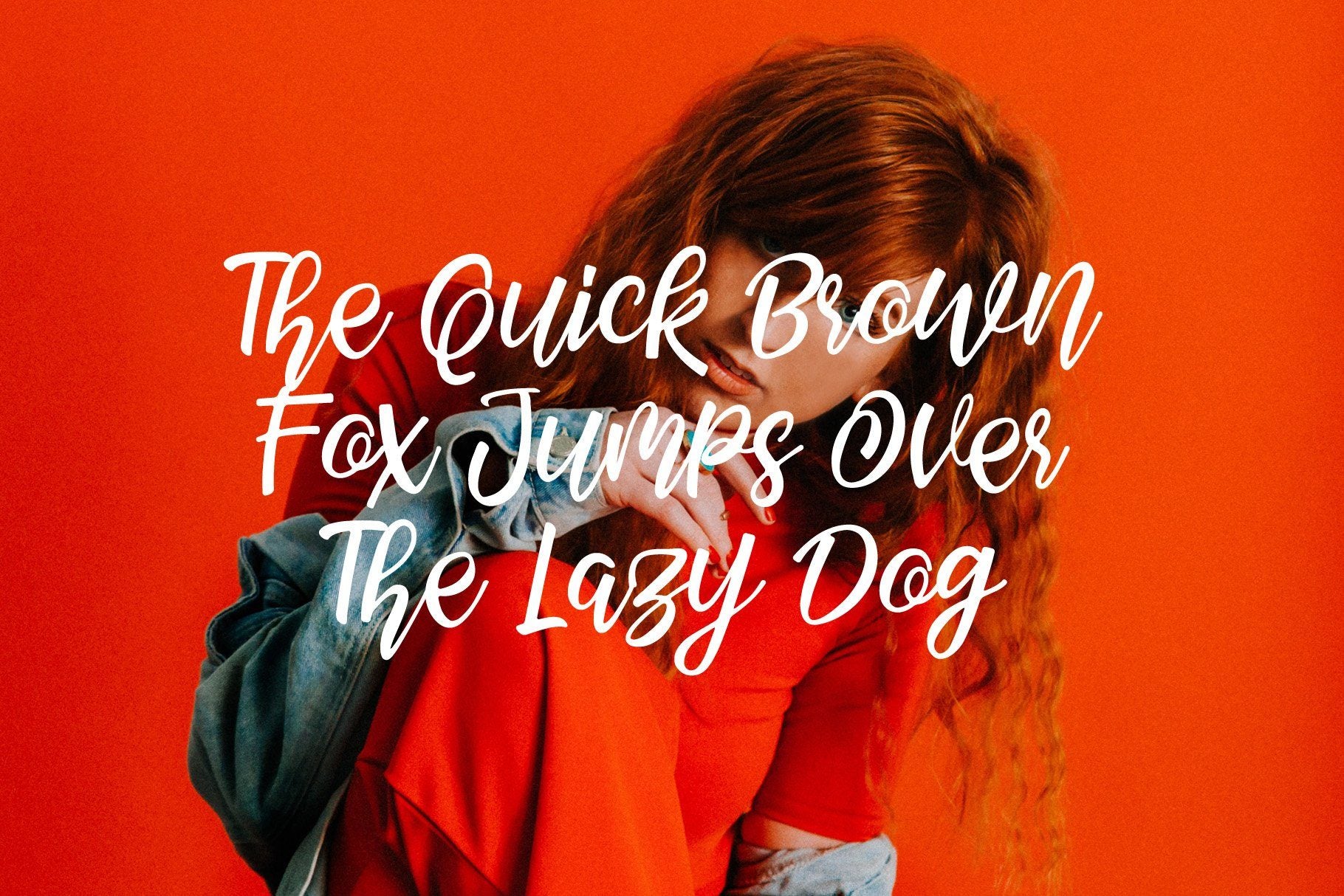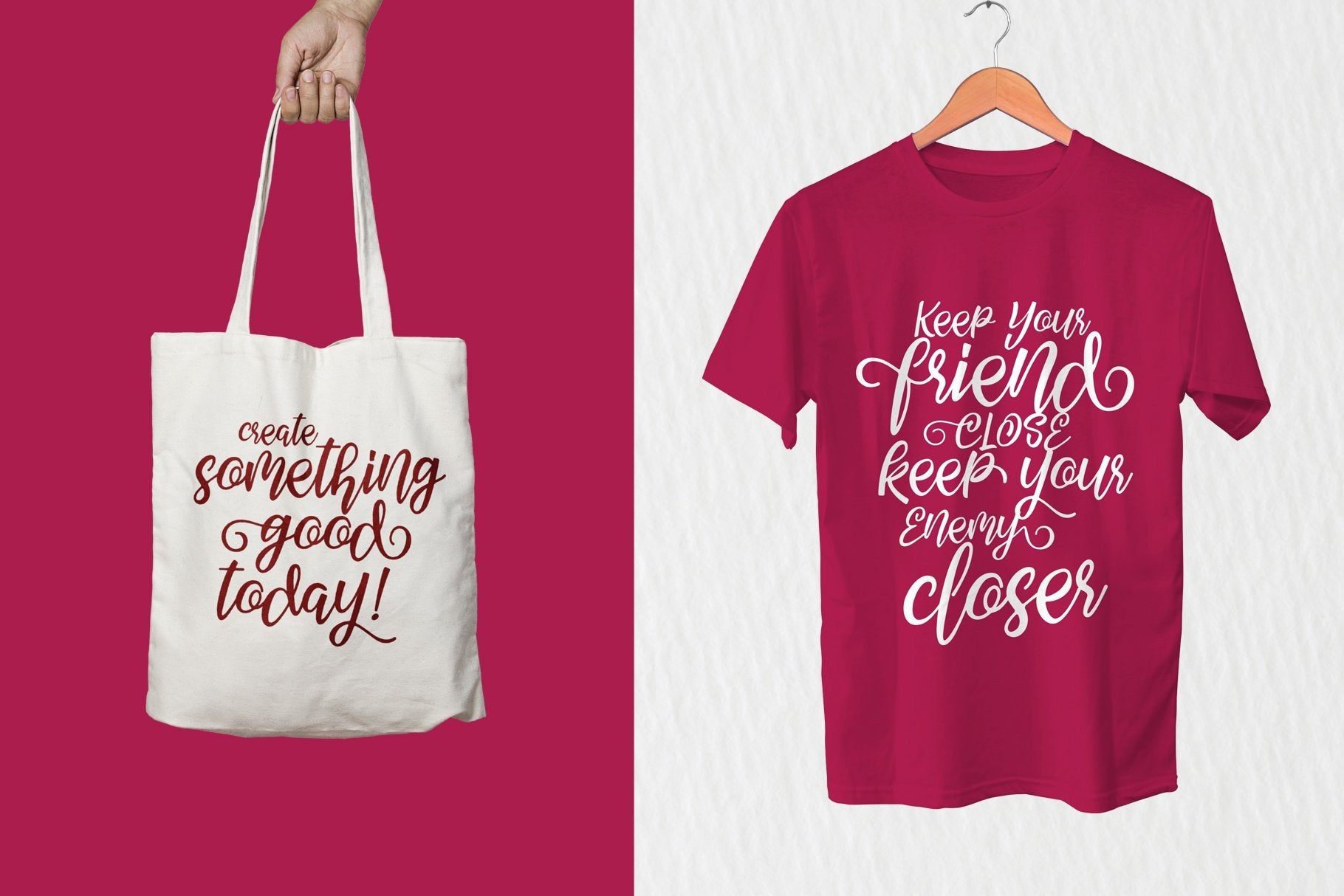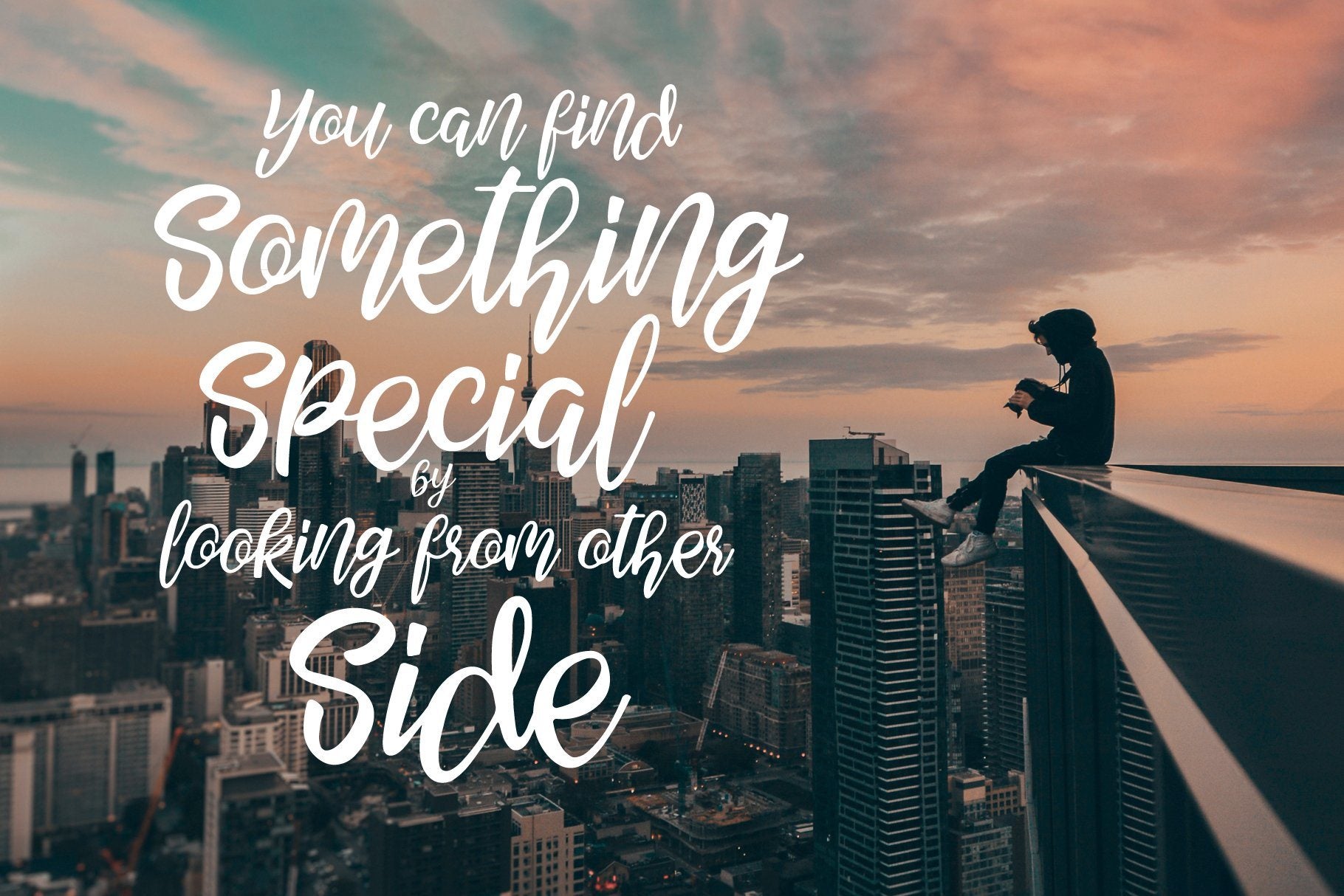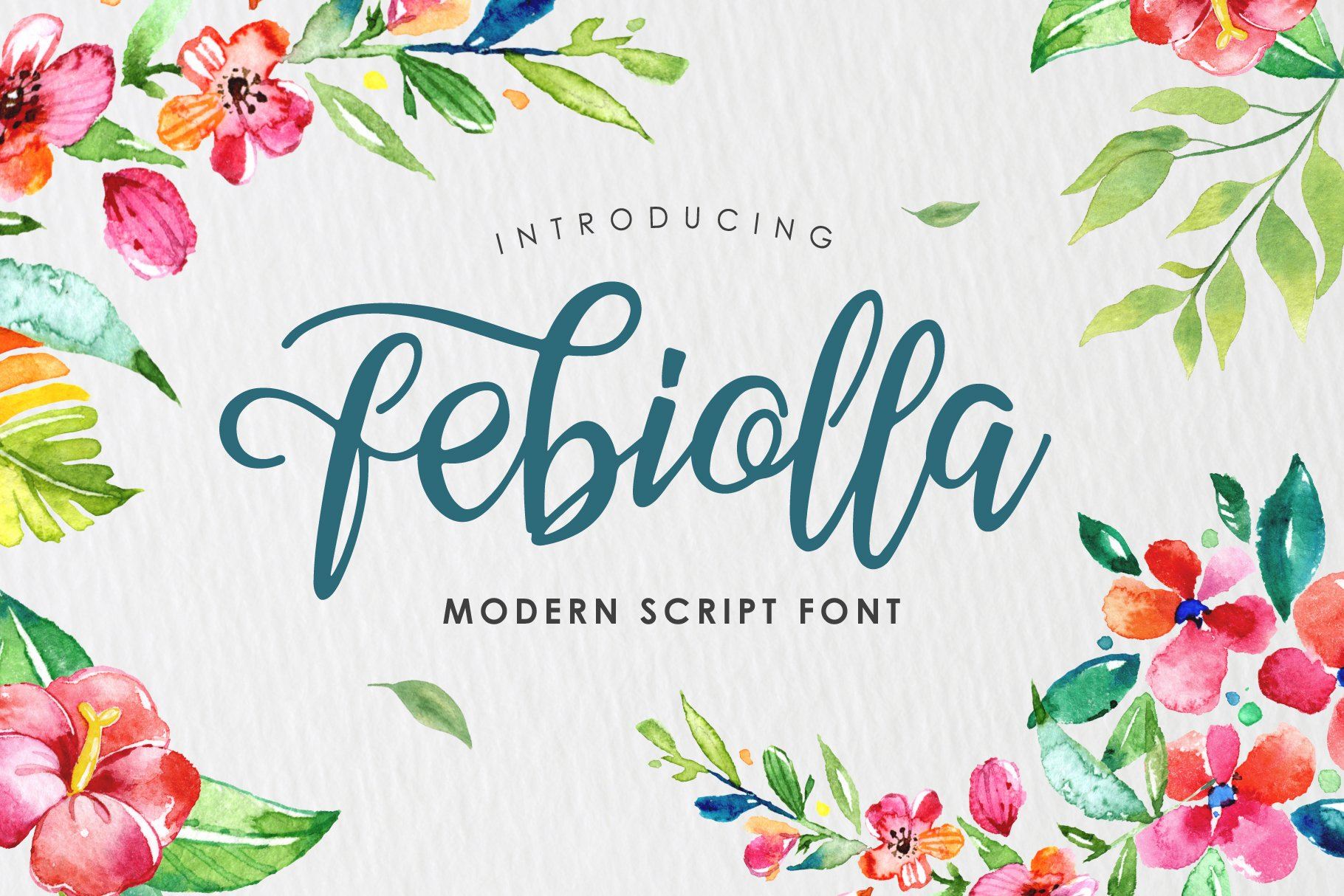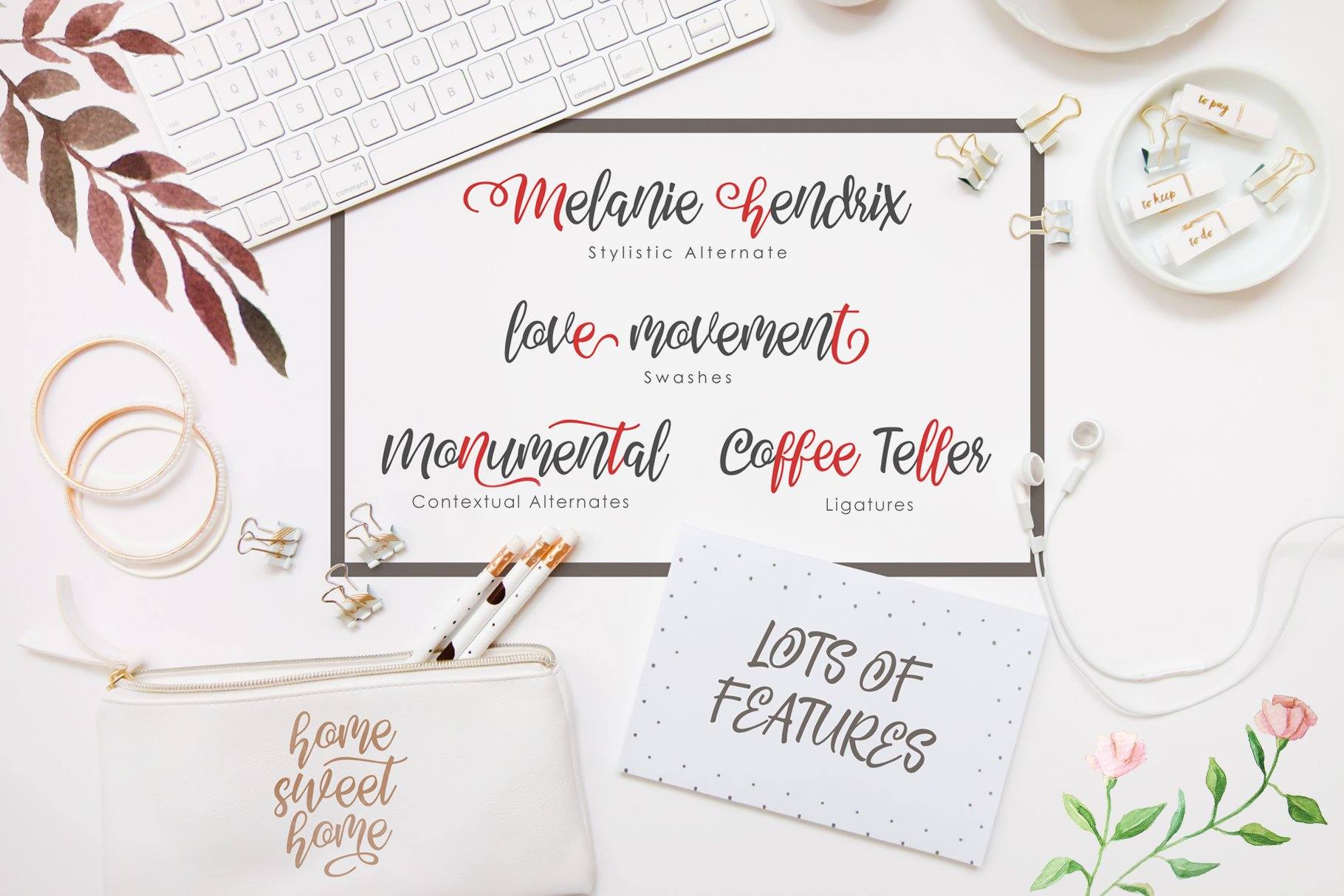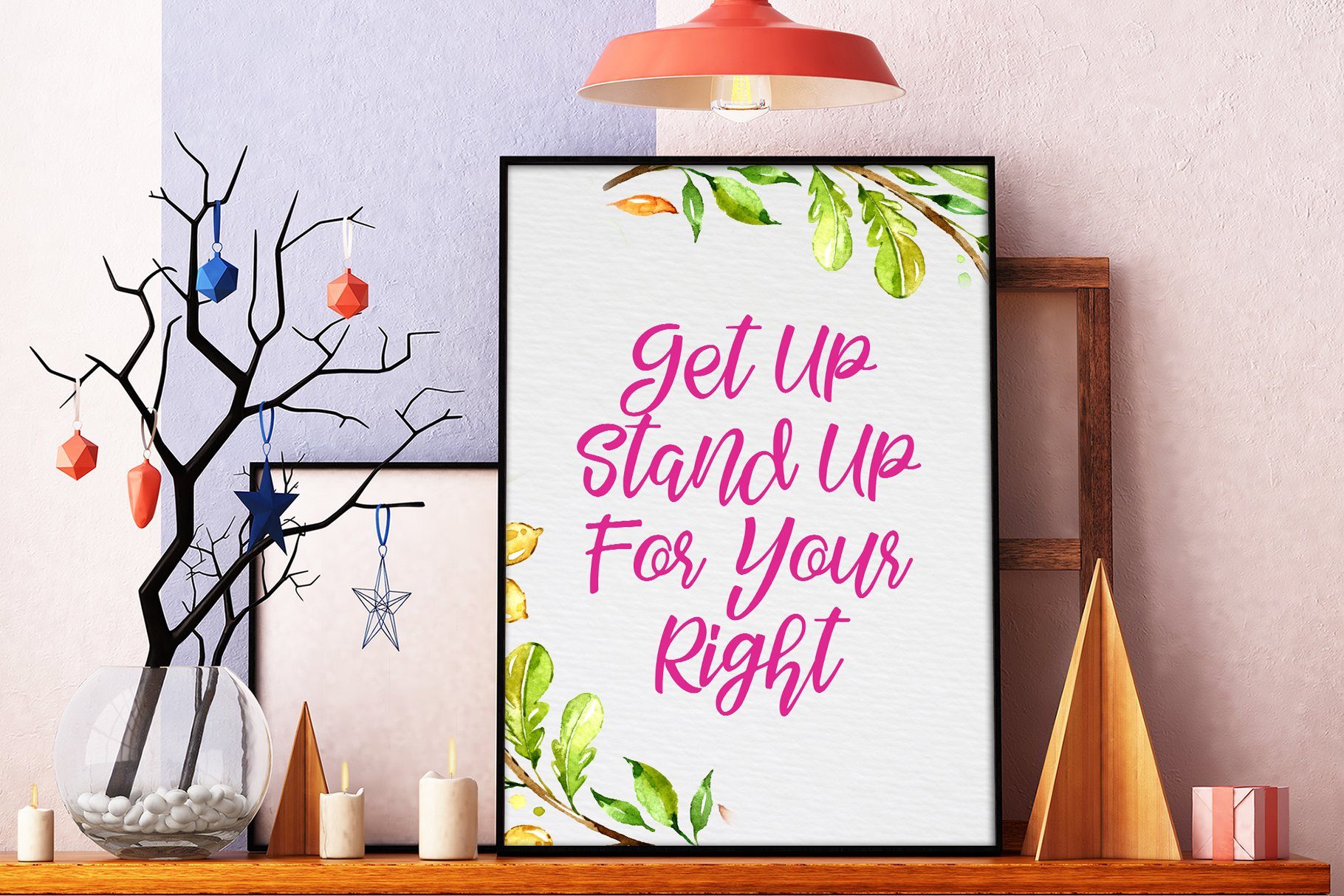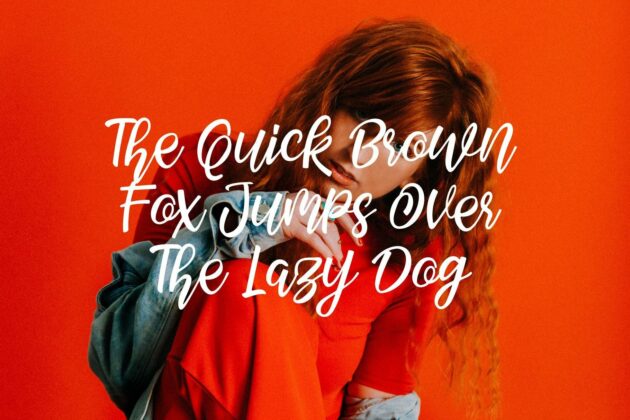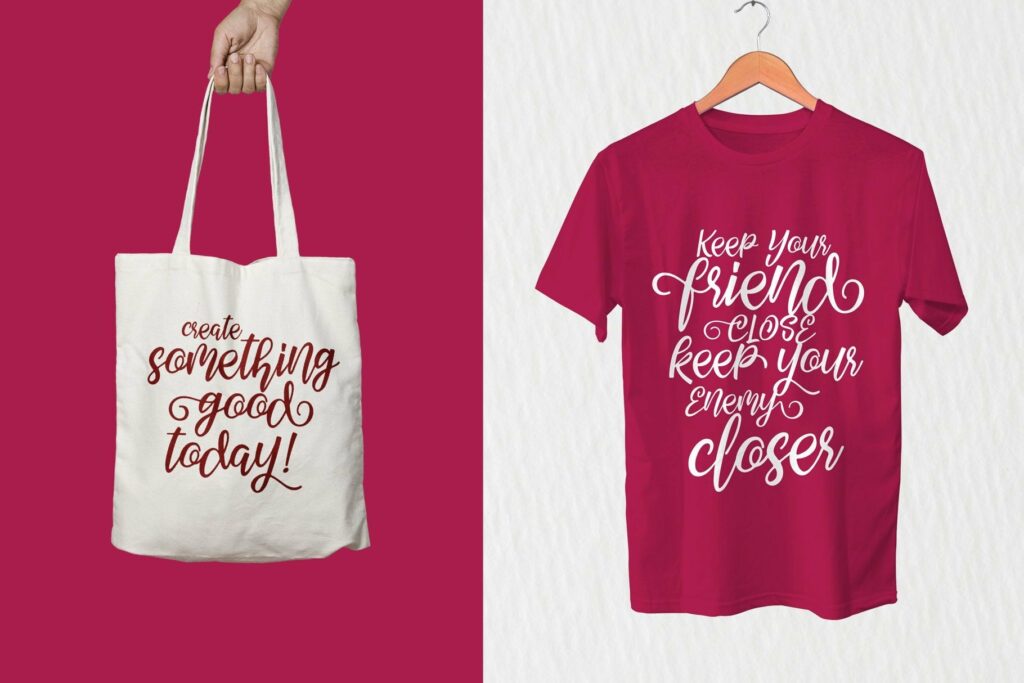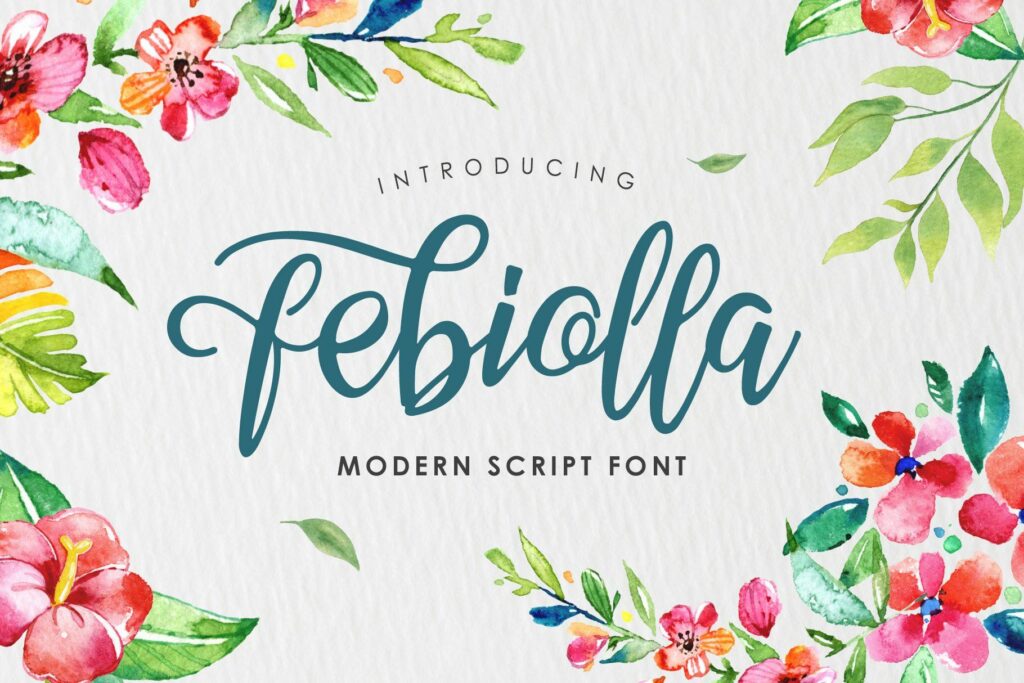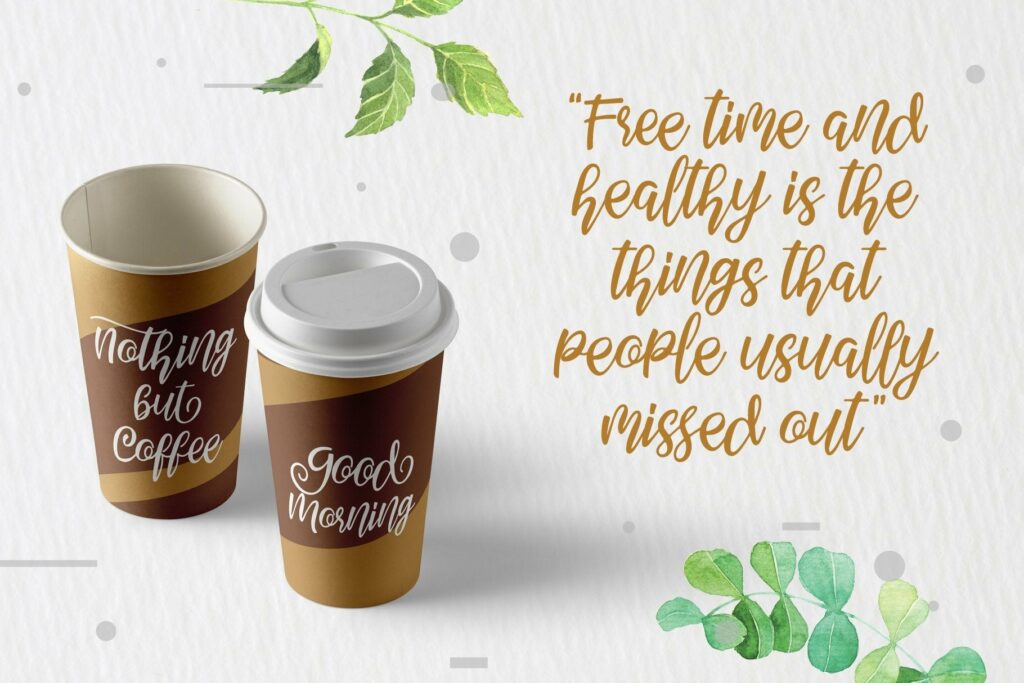
Febiolla Script
About Febiolla Script
Introducing our new brush-script font ‘Febiolla’ the cute font with clean shapes and dynamic strokes. Febiolla is has many features that you can apply and combine. there’s alot of stylistic alternates, contextual alternates, ligatures and swashes which designed to fit with words you made. The PUA Encoded which you can access with character maps (win) or font book (mac). Simply copy + paste the character you need. You can also access the special characters in character panel from any Adobe software with a double click. Fabiola typeface is available in TTF and OTF format. Good for any design project. Recommended for your merchandise design like a t-shirt, mug, apron, greeting card, tote bag. This font also fits on your headline element from a book cover, poster, brochure. A cute font that fits with craft project too. Here’s the whole features in a zip file : Uppercase Lowercase Numbers Symbol Multilingual support (standard) Stylistic alternate Contextual alternate Swashes Ligatures Thank you for visiting, and I hope you enjoy it! Please don’t hesitate to drop me a message if you have any issues or queries.